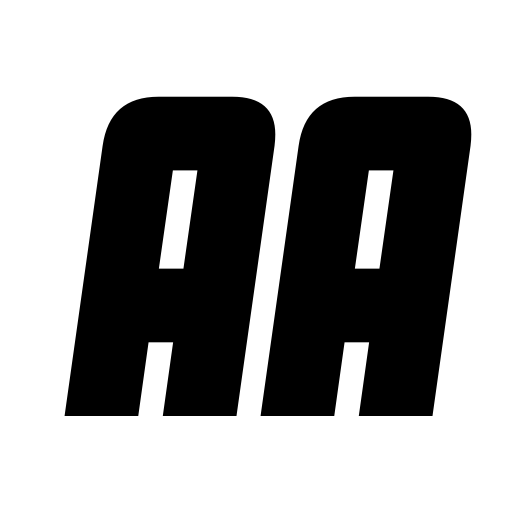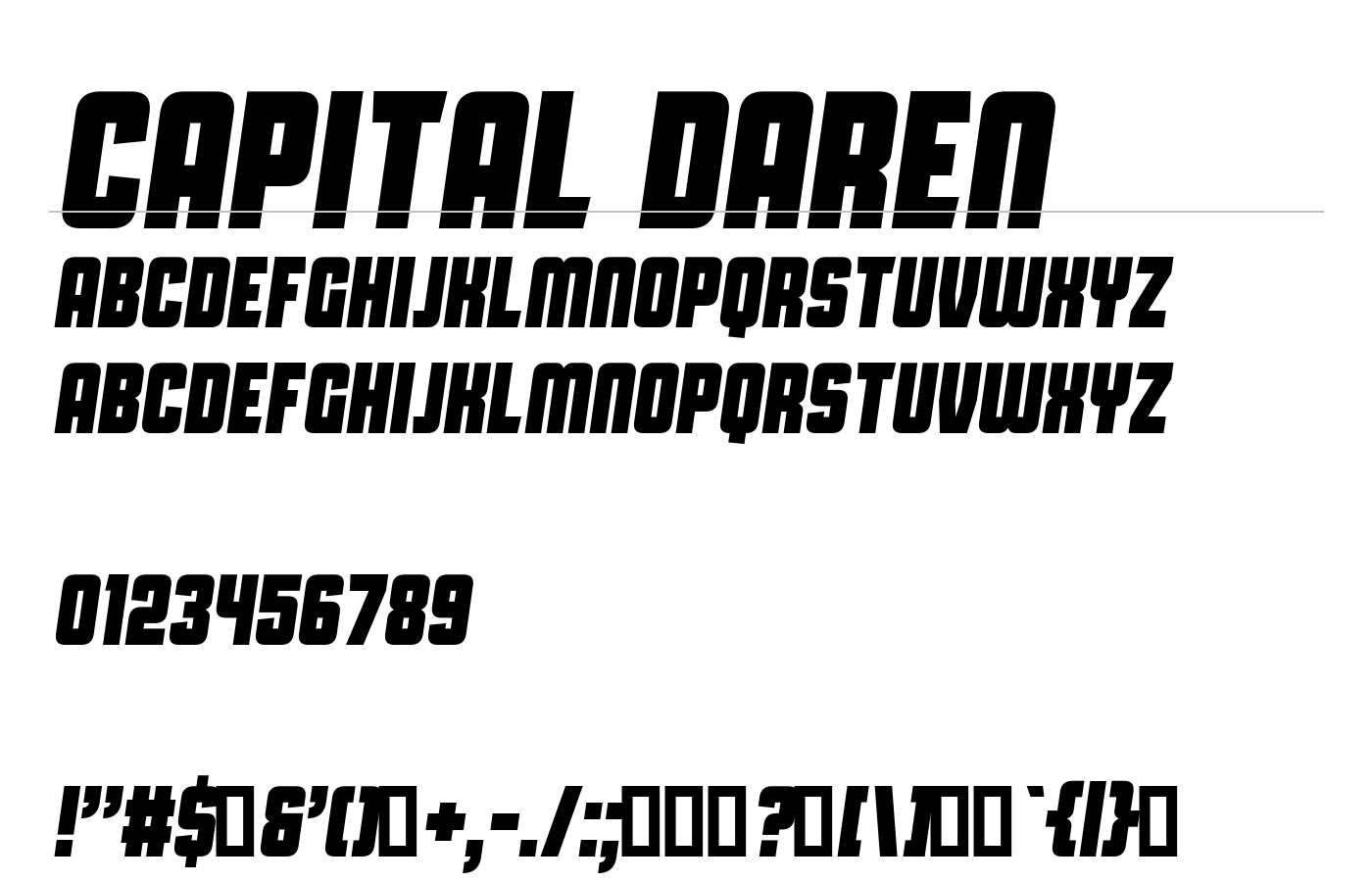
Capital Daren is a bold, condensed sans serif font with a strong, dynamic presence created by its slightly italicized, blocky letterforms and high x-height. Its uniform stroke weight and tight spacing give it a modern, sporty feel, making it perfect for attention-grabbing headlines, logos, and branding that demands energy and impact. This font works well in contexts where a sleek, confident, and contemporary look is desired.
Capital Daren Font
About Capital Daren Font
| Font family | Capital Daren Font |
| Release date | 2012-04-28 |
| Designer | Jayvee D. Enaguas (Grand Chaos) |